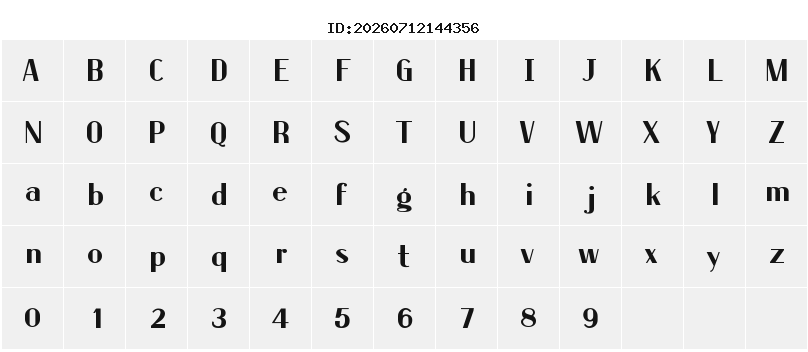
Raung Rivs Preview
• Font Name: Raung Rivs
• Full Font Name: Raung Rivs
• Version: Version 1.00 April 7, 2016, initial release
About Raung Rivs.ttf
Raung Rivs.ttf is a modern, elegant sans-serif font designed for ultimate readability and visual harmony. Perfect for branding, headlines, web design, and print materials.